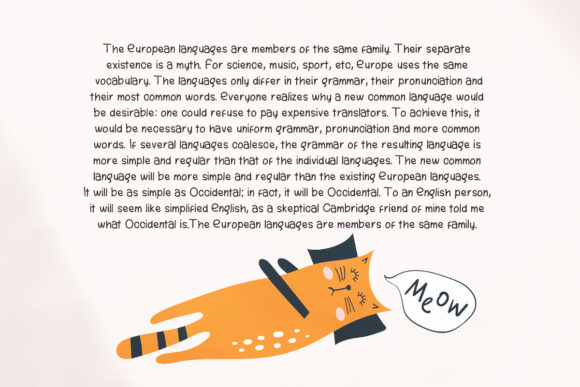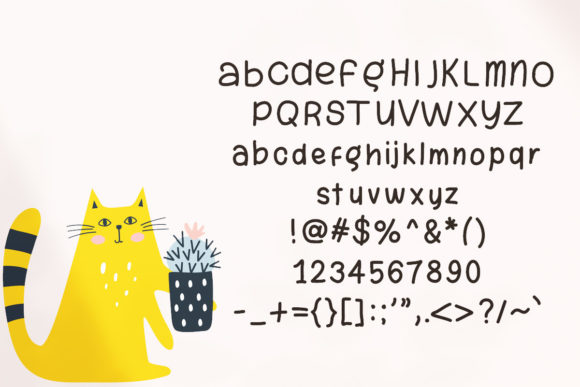
Introduction to My Name is Pomello Font
My Name is Pomello is a cute and thin lettered script font, that can be used for all chalkboard quotes or teaching material.
Its authentic look will add a personal and realistic feel to your designs .
Key Features of My Name is Pomello Font
Why Choose My Name is Pomello Font?